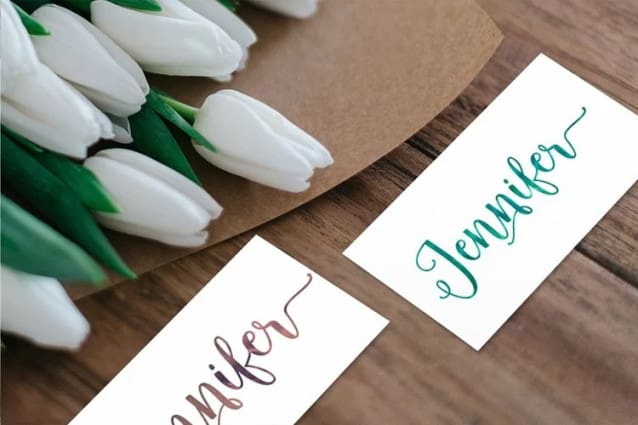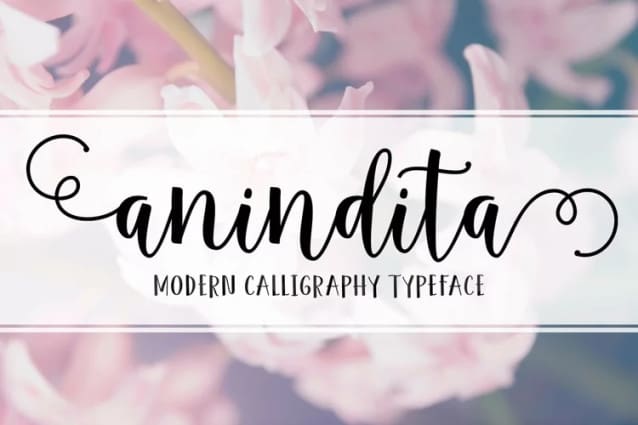
Anindita Font
Anindita Font is a modern calligraphy typeface, casual and pretty with swashes. Can be used for many purposes. such as title, signature, logo, wedding invitations, letterhead, signage, labels, newsletters, posters, badges, etc. Anindita Script features Open type, including the initial and terminal letters, alternates, ligatures and International support for most Western languages ??included.